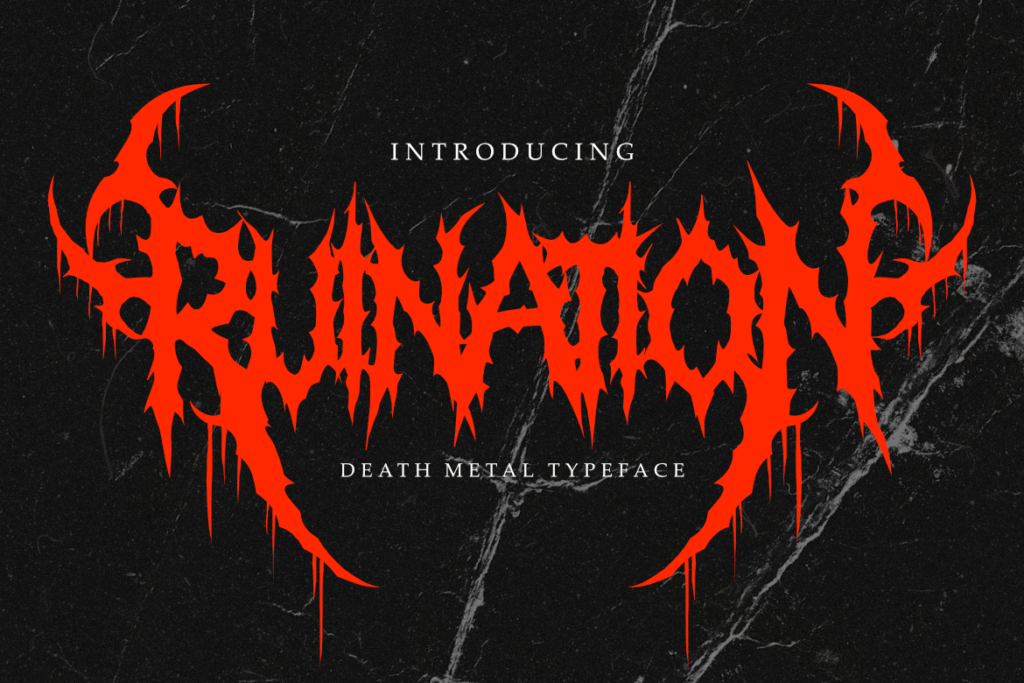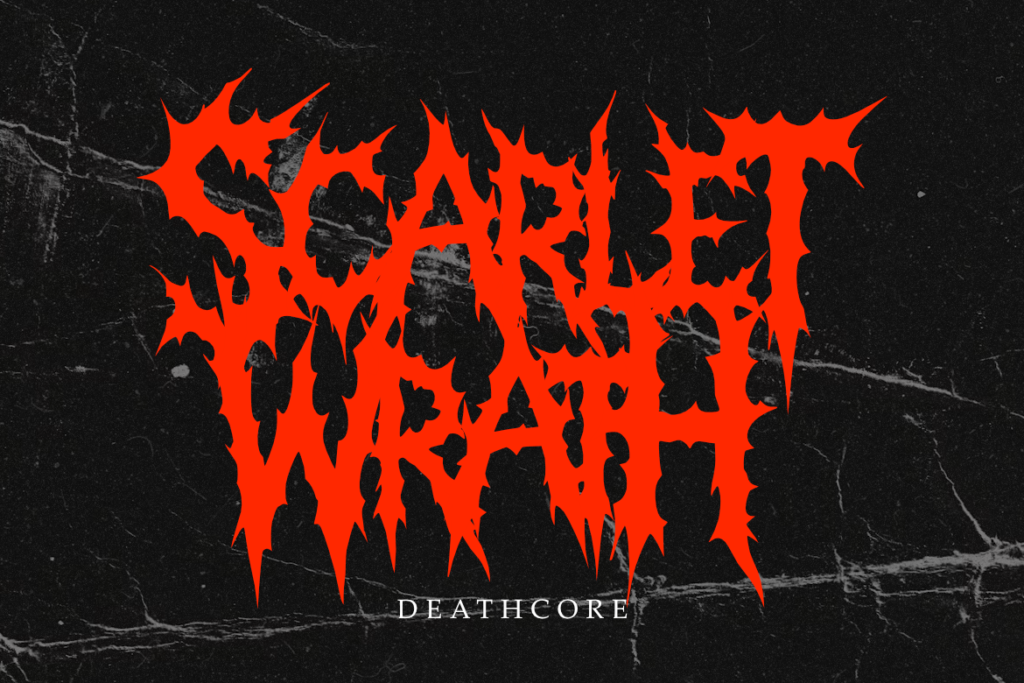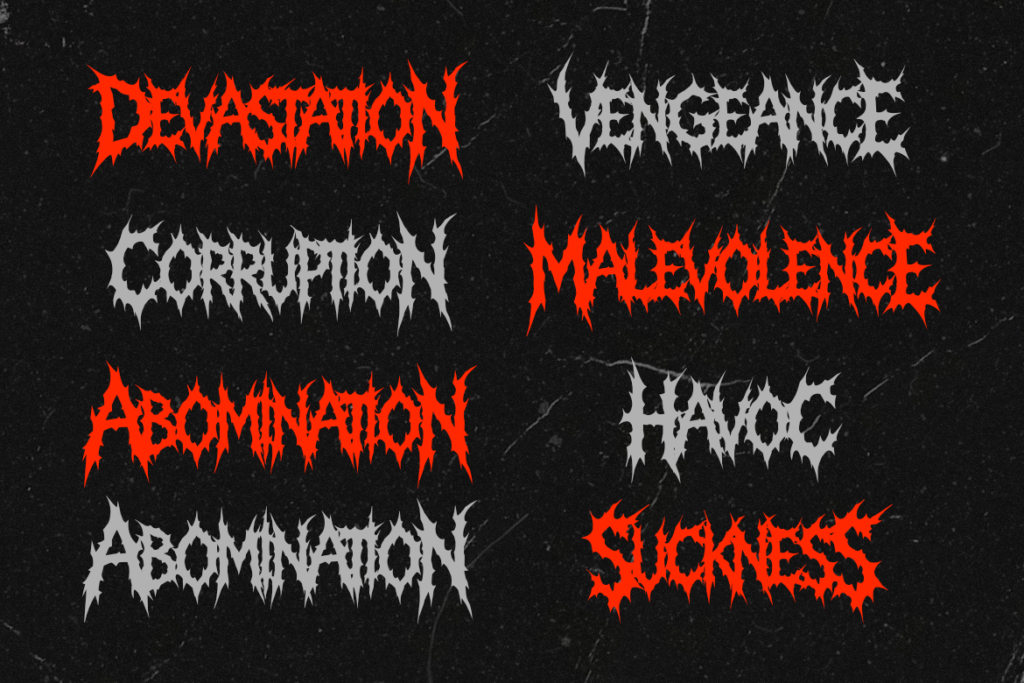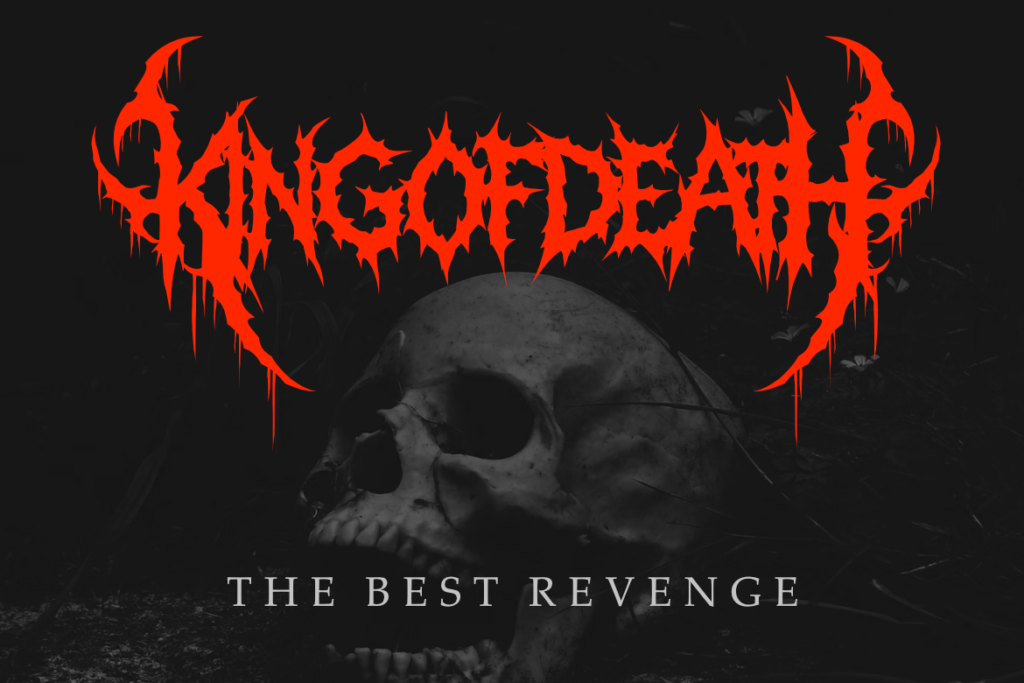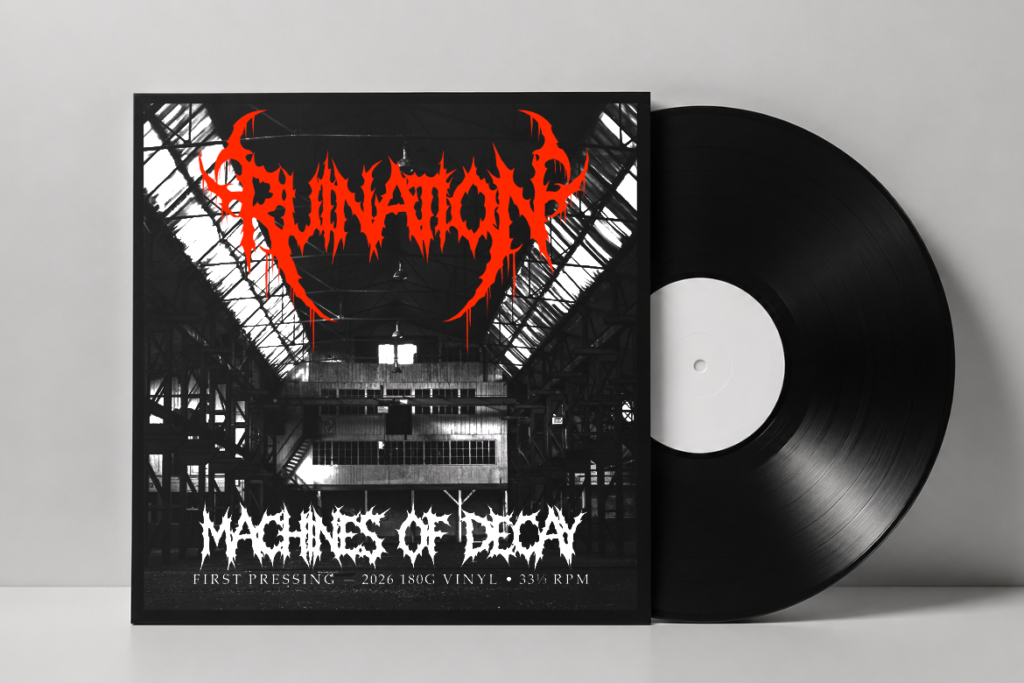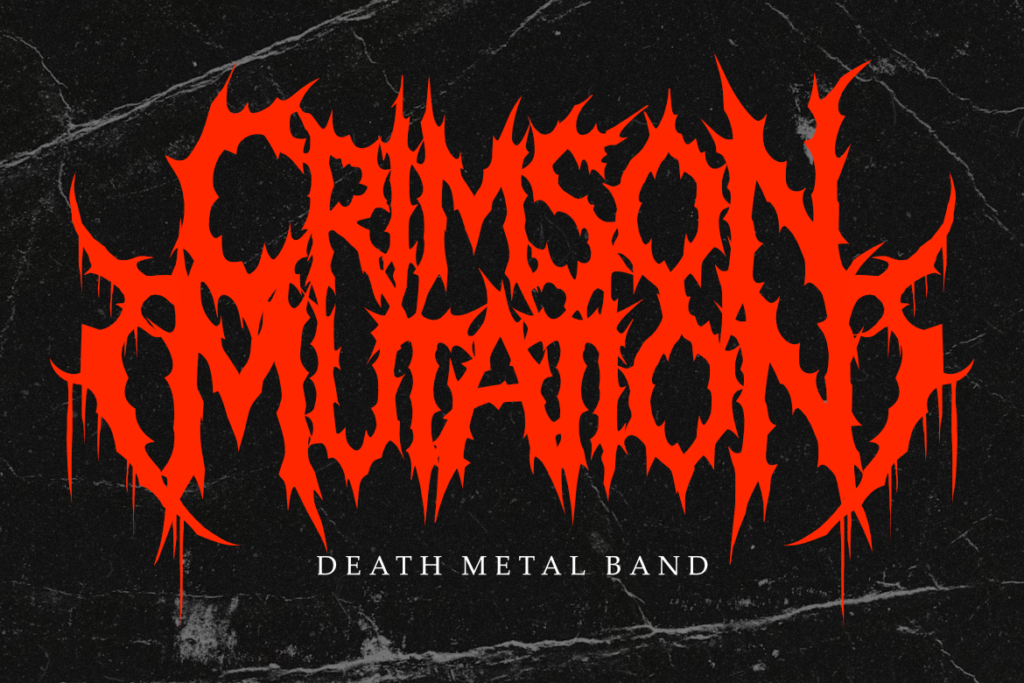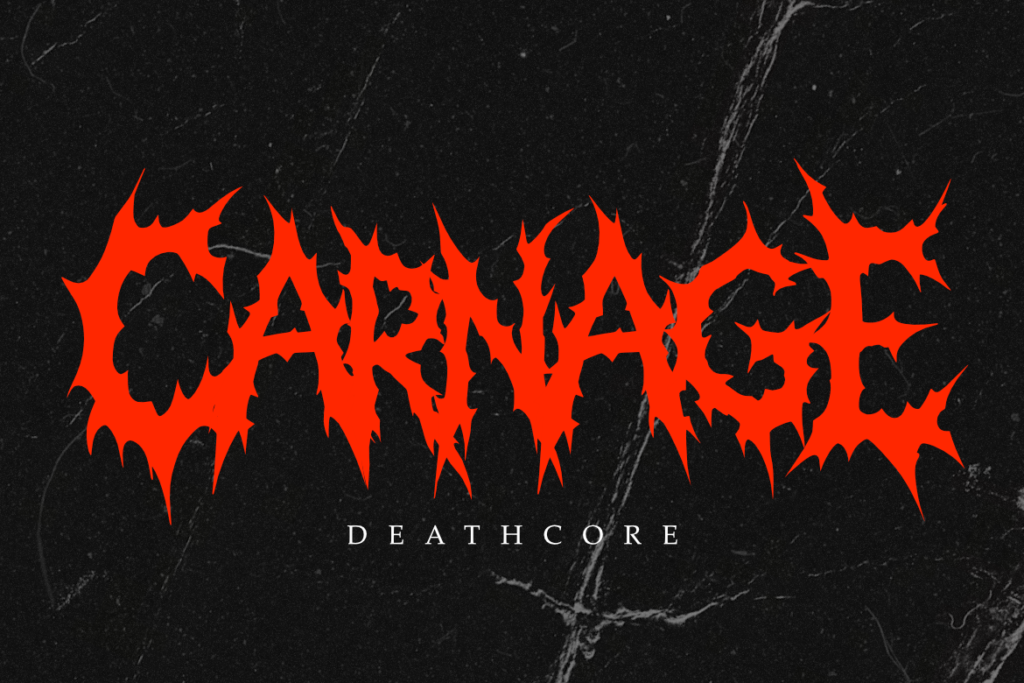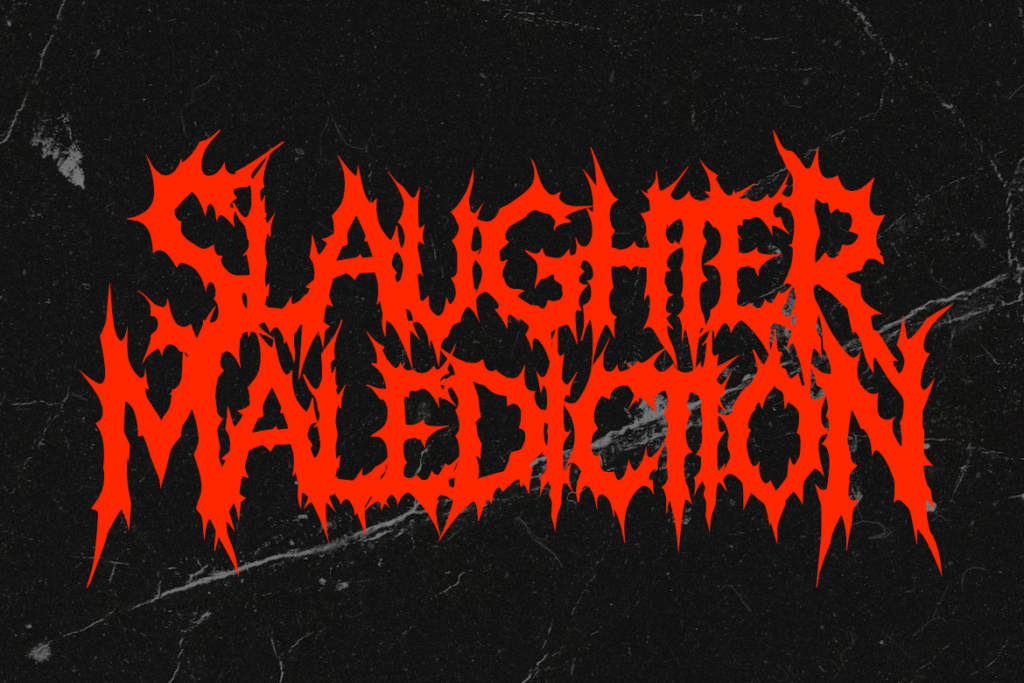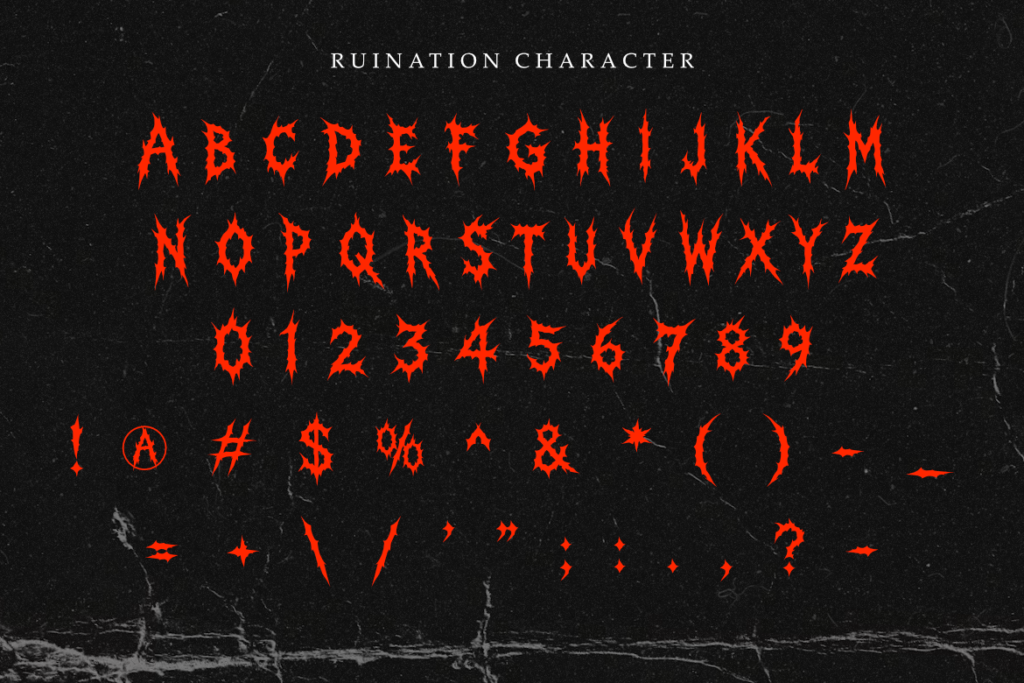
Display typeface · Latin
Ruination
Ruination is an extreme gothic display typeface featuring sharp organic forms, aggressive spikes, distorted silhouettes, and intricate ornamental details. Its intense construction creates a dark visual language inspired by death metal, underground music, horror, and gothic aesthetics. Designed for strong visual identities, Ruination works particularly well for music branding, band identities, album artwork, gothic logos, horror titles, dark event graphics, and alternative visual campaigns. The irregular letterforms give short names and headlines a distinctive presence while creating an unmistakably extreme atmosphere. Ruination is suited to creative projects that require an intense, dark, and highly expressive typographic identity.